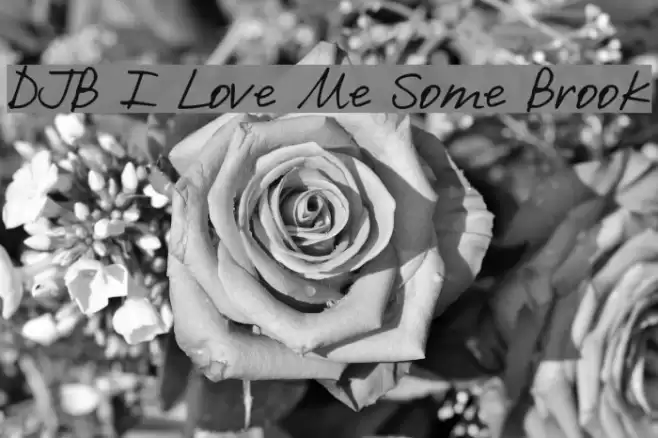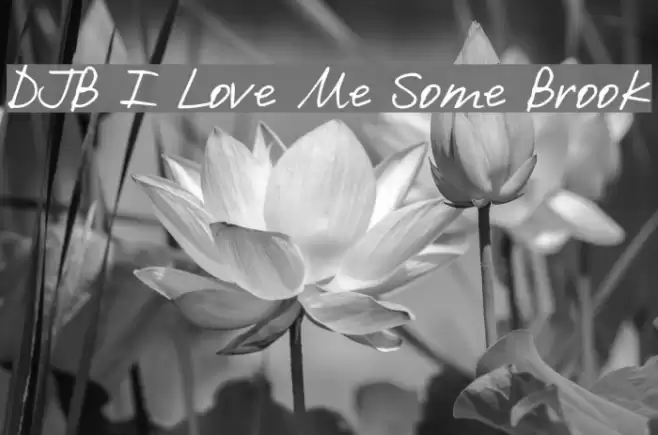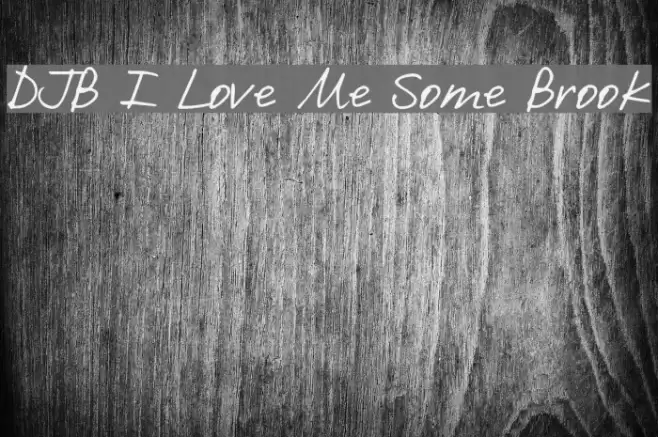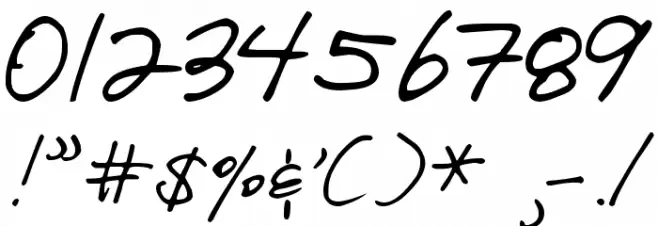
DJB I Love Me Some Brook Font
DJB I Love Me Some Brook Description
This font features a playful and casual handwritten style, characterized by its smooth, flowing lines and slightly slanted orientation. The uppercase letters are bold and confident, while the lowercase letters maintain a consistent rhythm and fluidity. The numerals are clear and easy to read, with a slight tilt that adds to the overall informal feel. Special characters are well-integrated, maintaining the font's cohesive look. The strokes vary in thickness, providing a dynamic and lively appearance that captures the essence of personal handwriting.
A playful, casual handwritten font with smooth, flowing lines and a slightly slanted style from Valentine's Day fonts.
- Overall Style: Casual